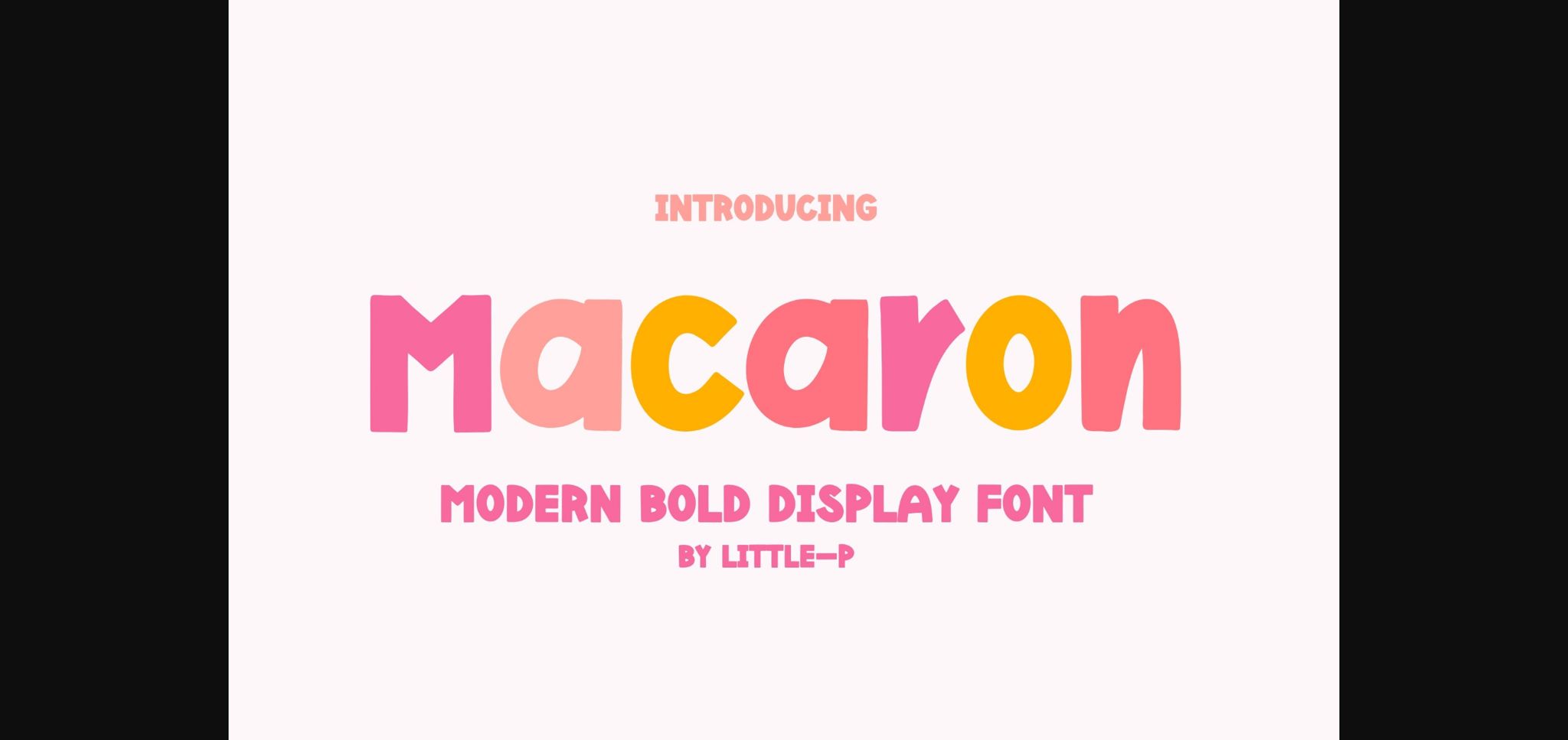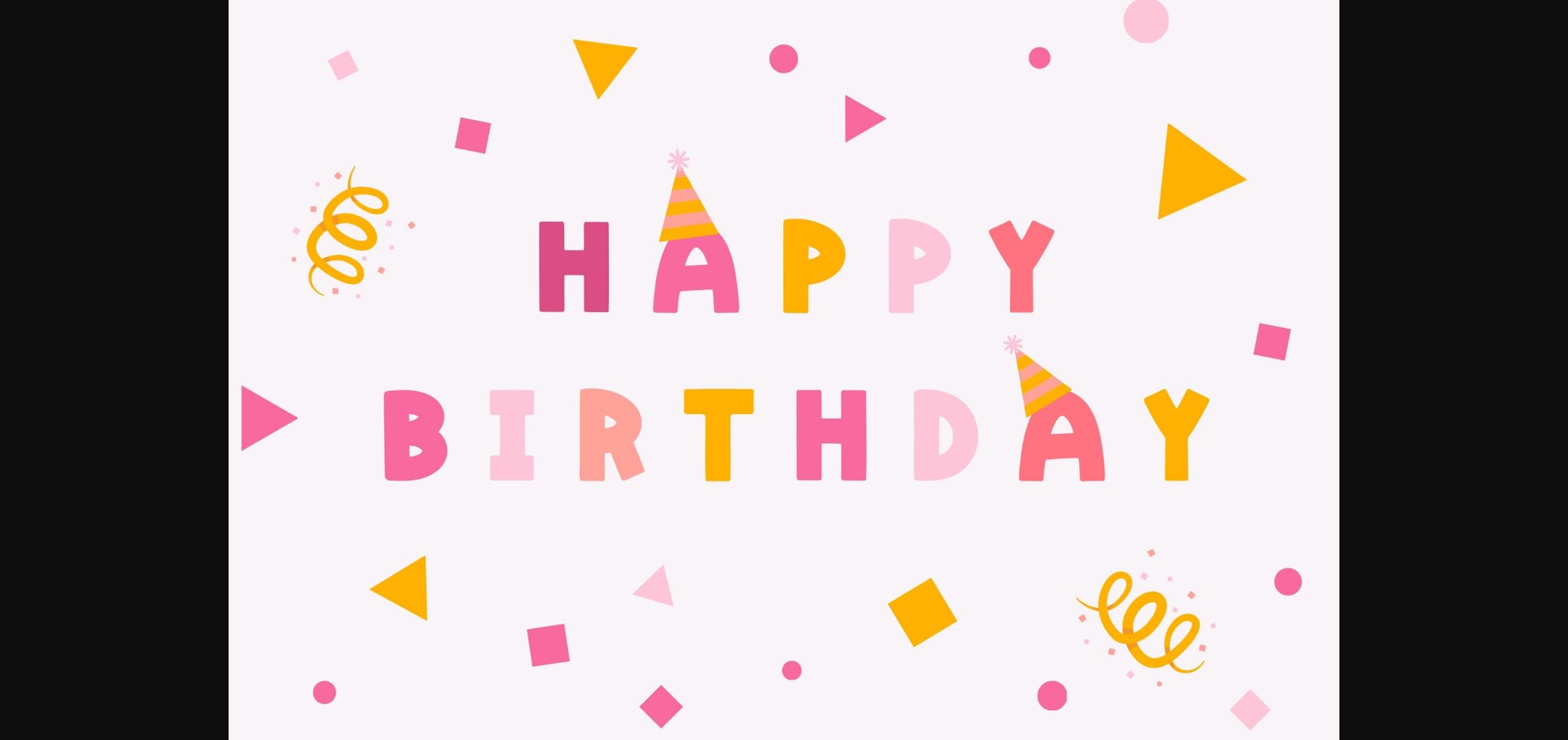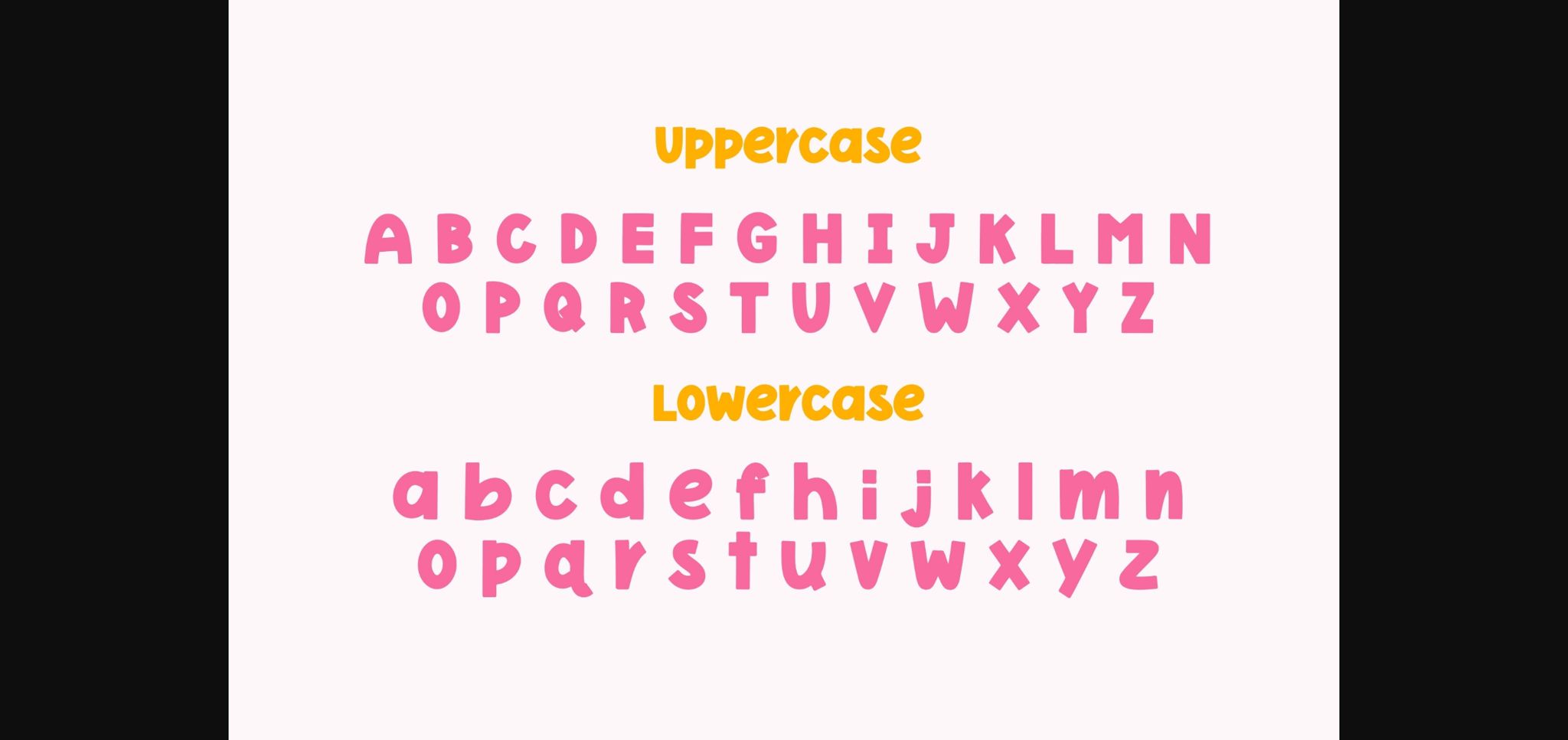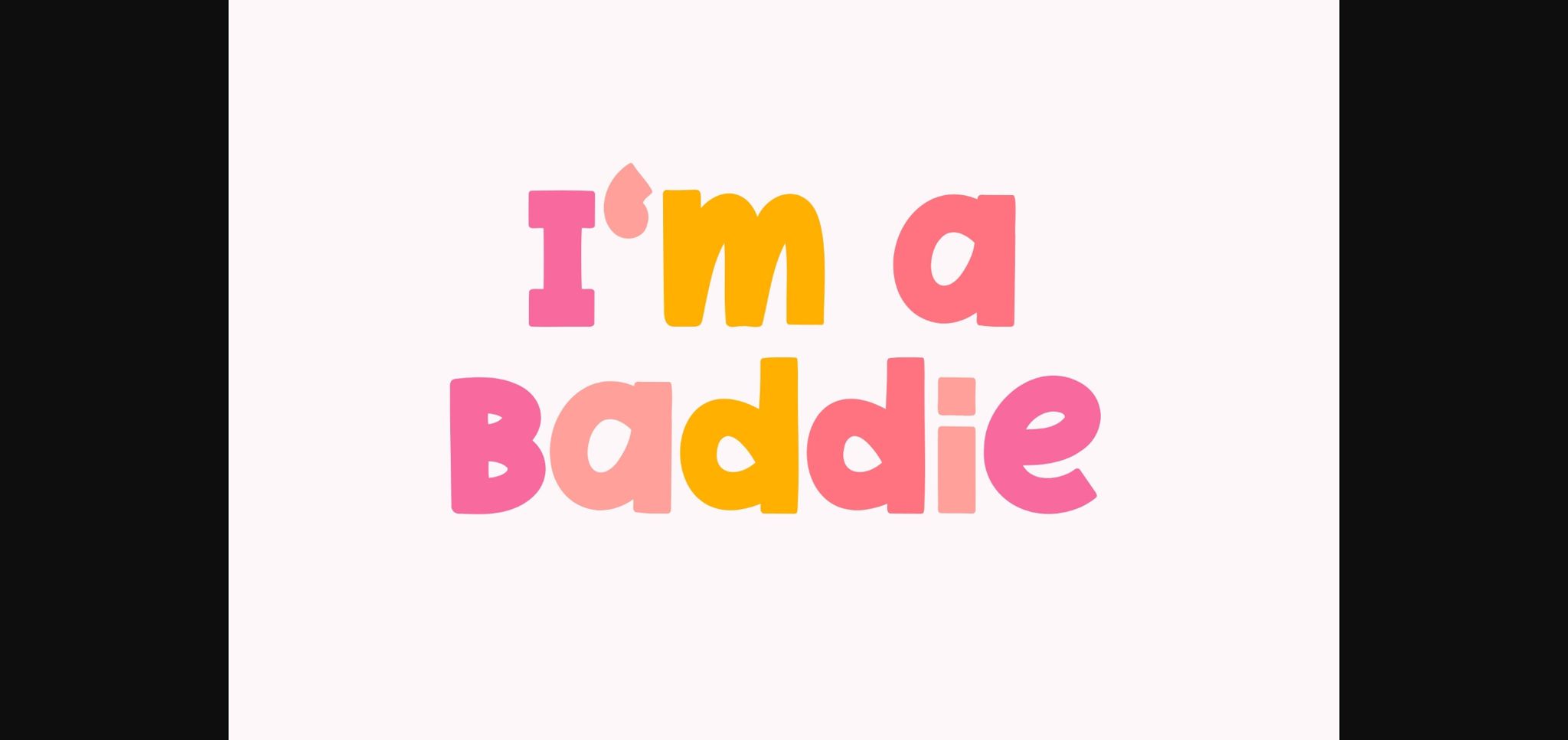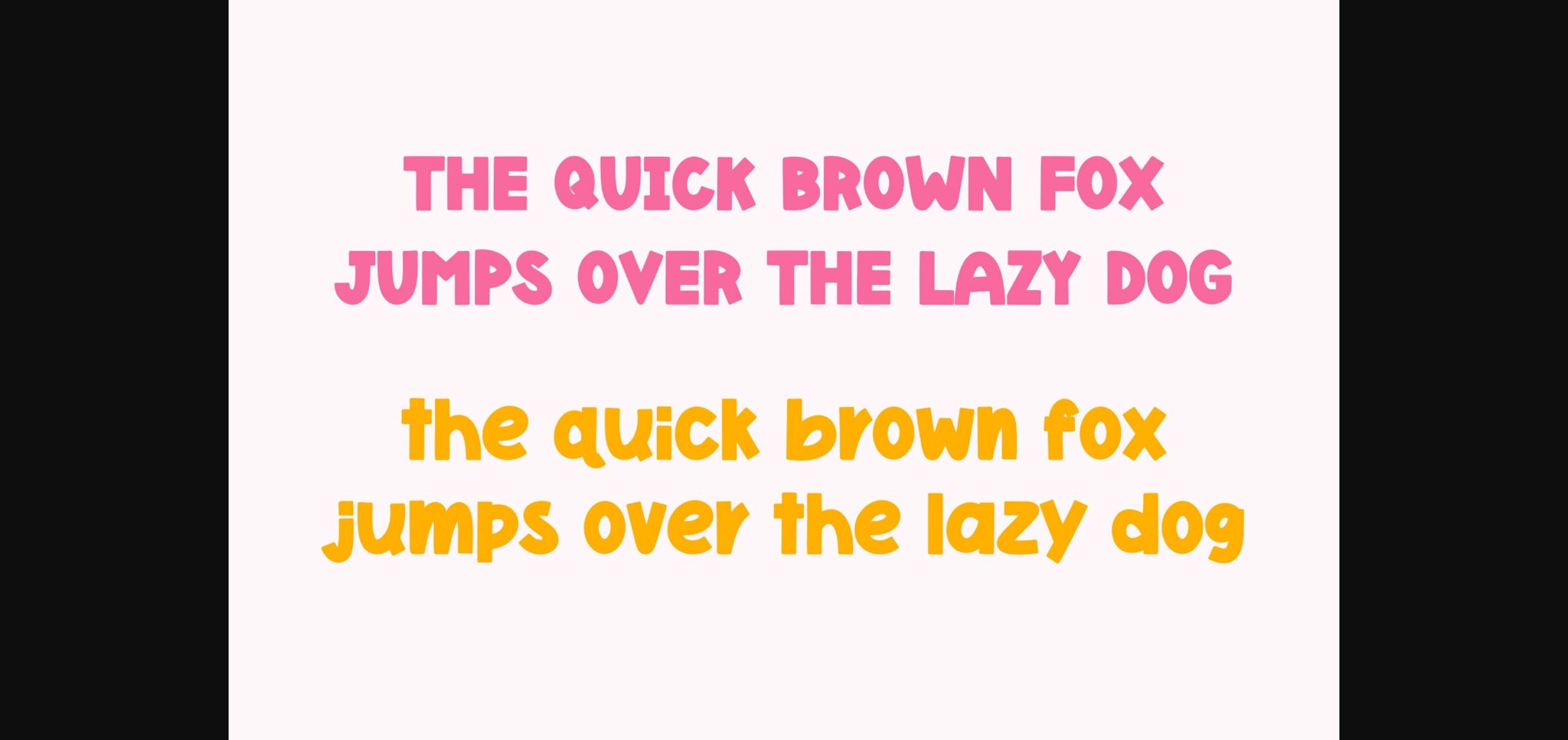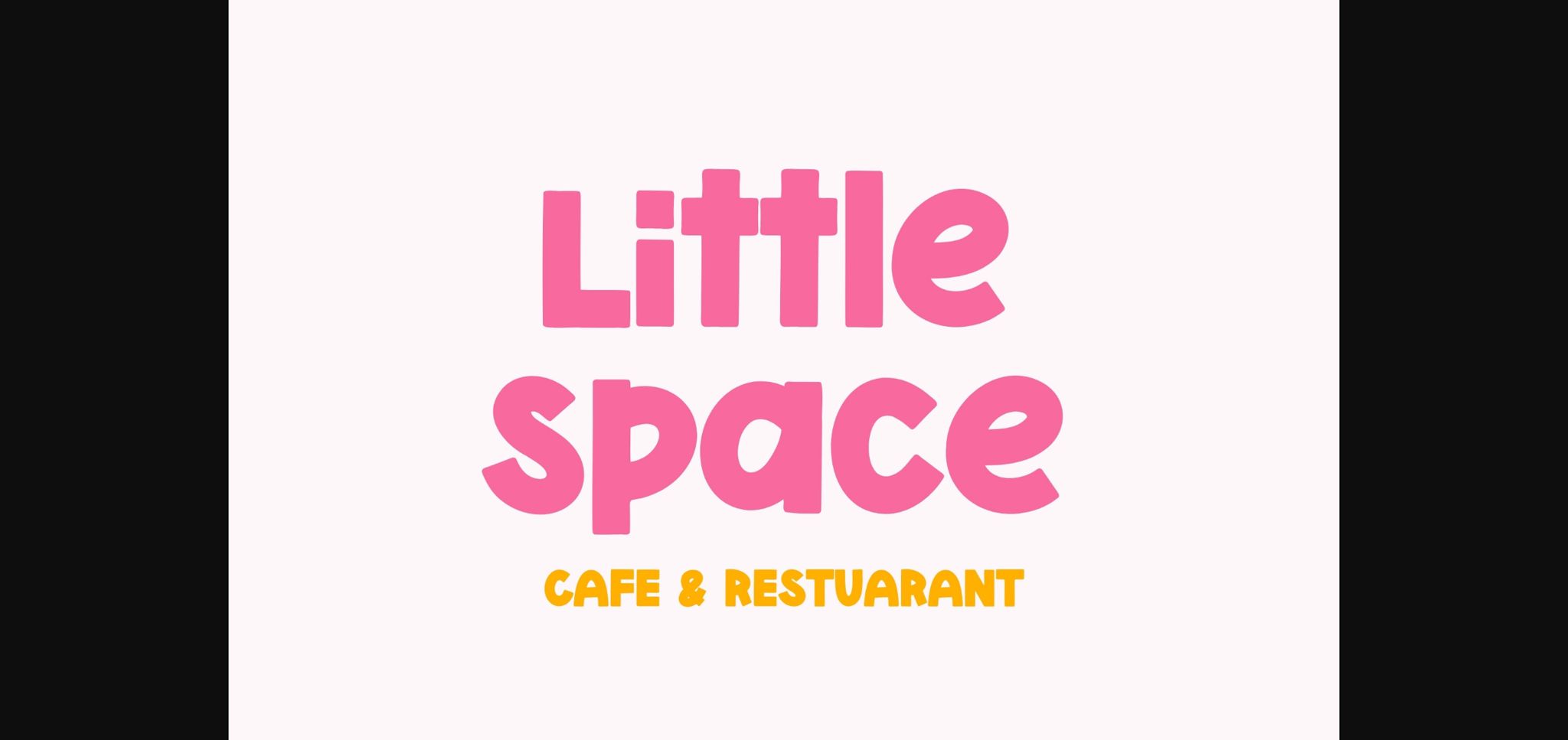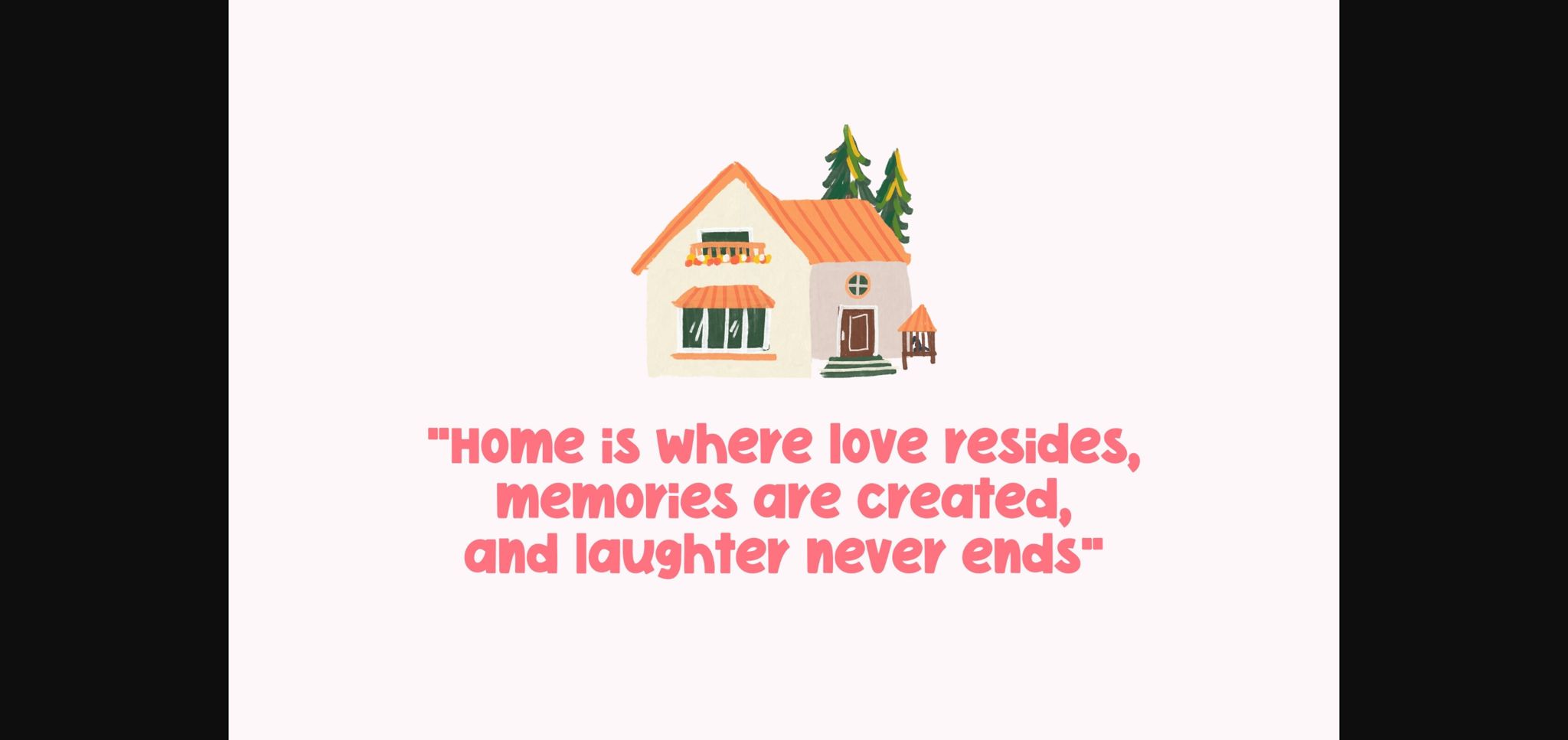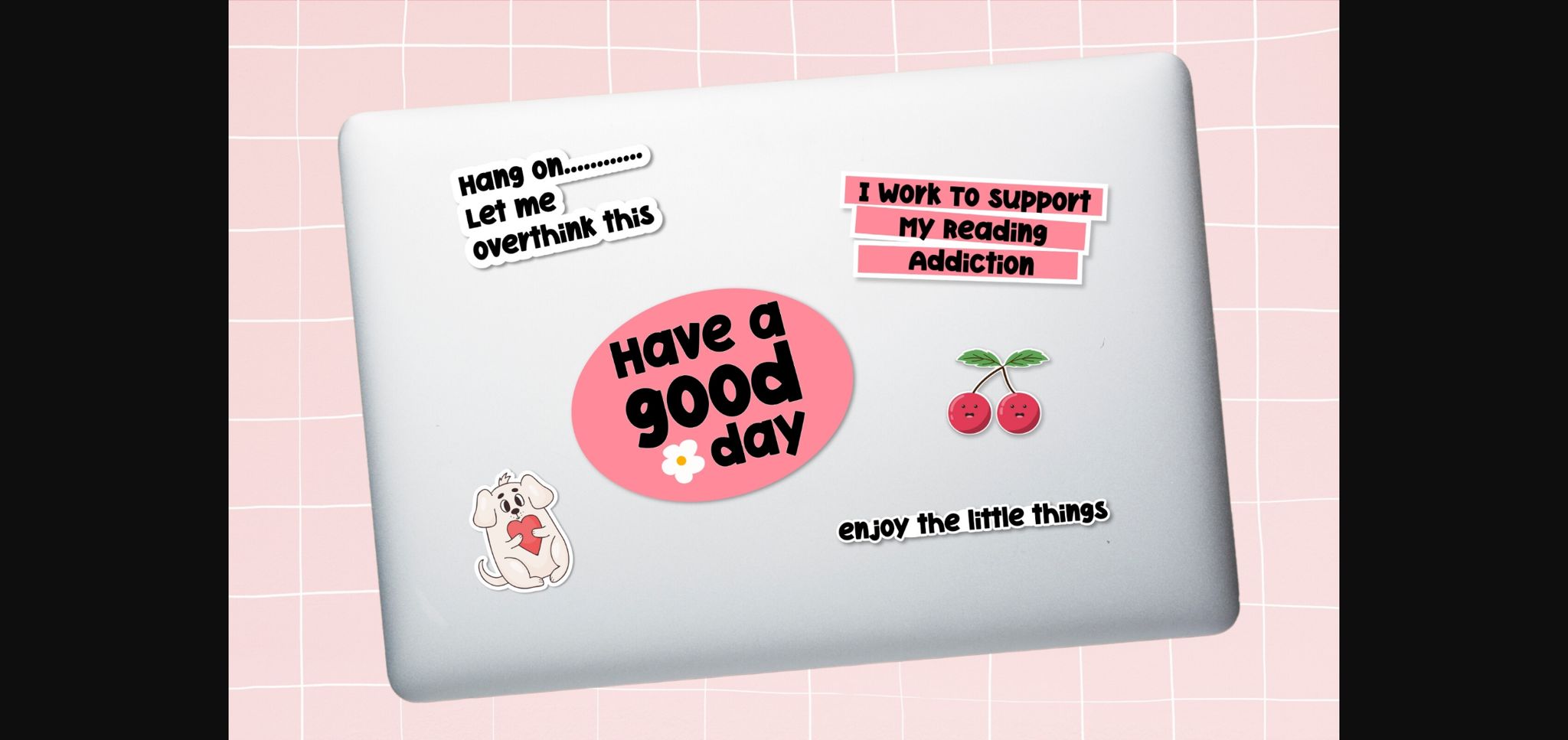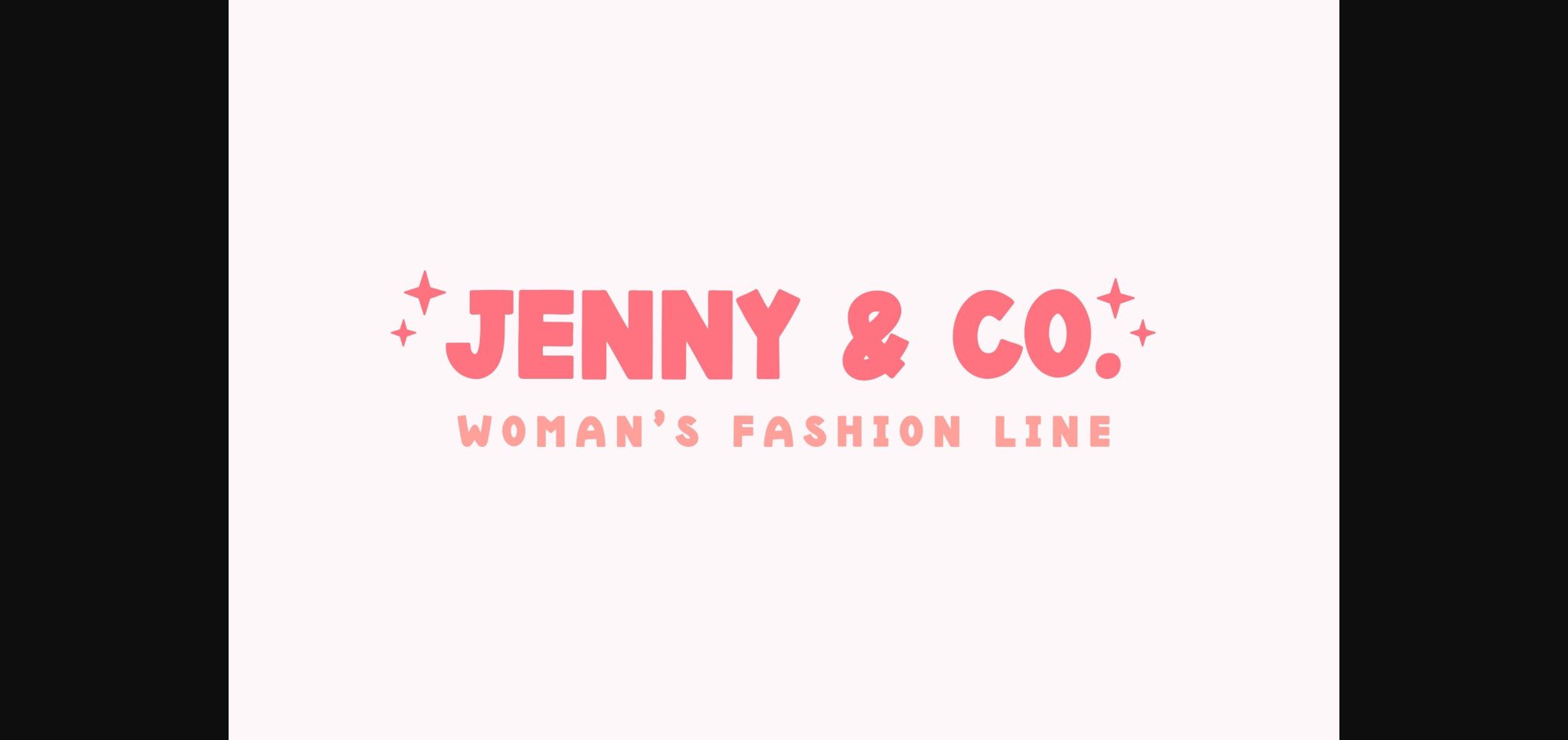
Macaron Font
About Macaron Font
Introducing Macaron a delightful font crafted to infuse your designs with a playful and slightly childlike charm. Its chubby yet clean letters exude simplicity and modernity, making it a versatile choice for various projects. Whether you’re creating quotes, children’s books, stickers, greeting cards, meal package designs, or logotypes, Macaron adds a touch of whimsy and character to your compositions. Embrace the playful spirit of Macaron and watch your designs come to life with its unique personality and charm.